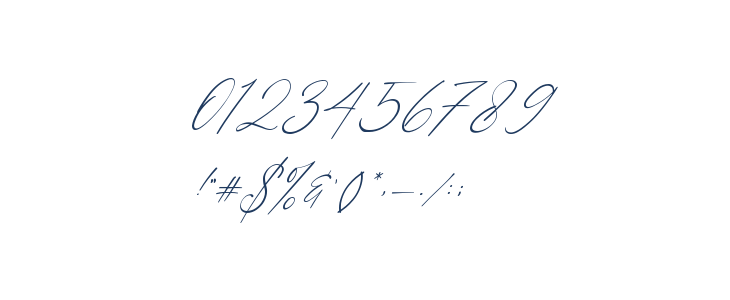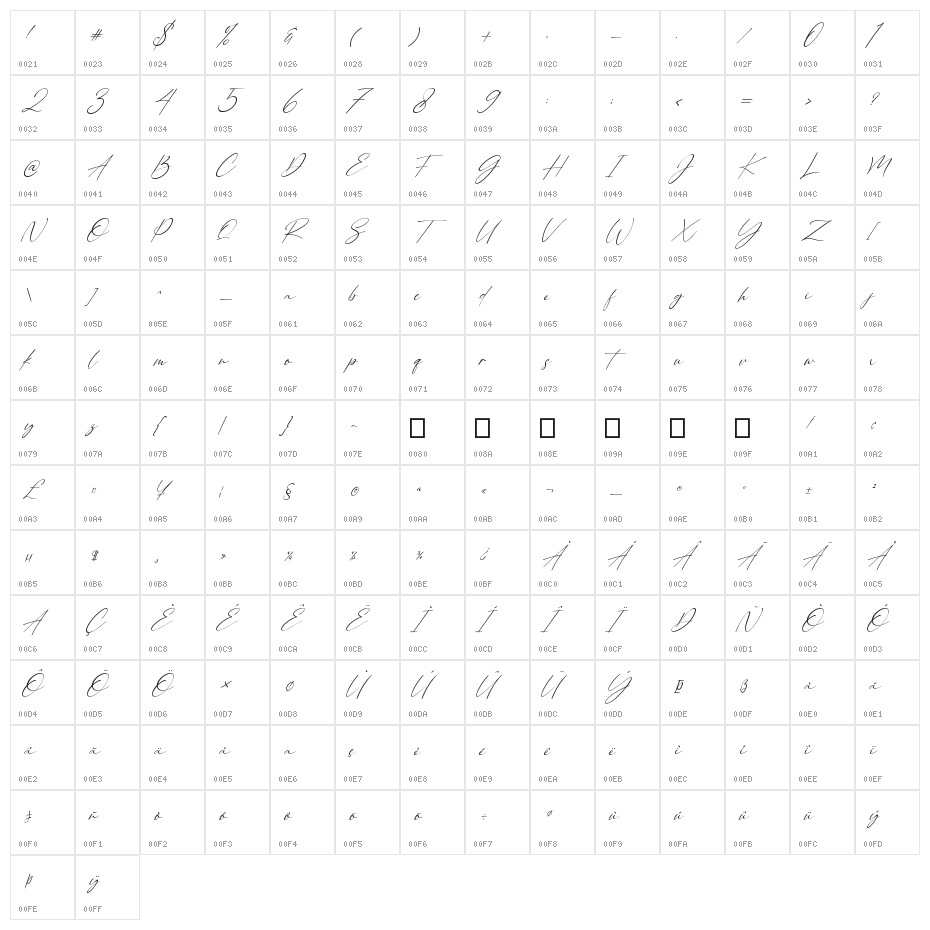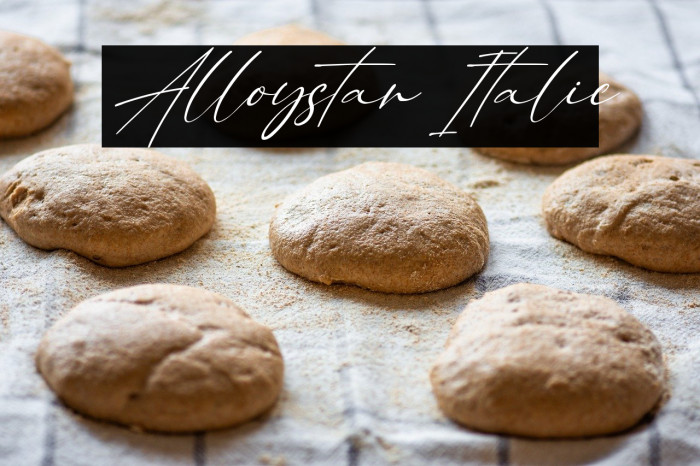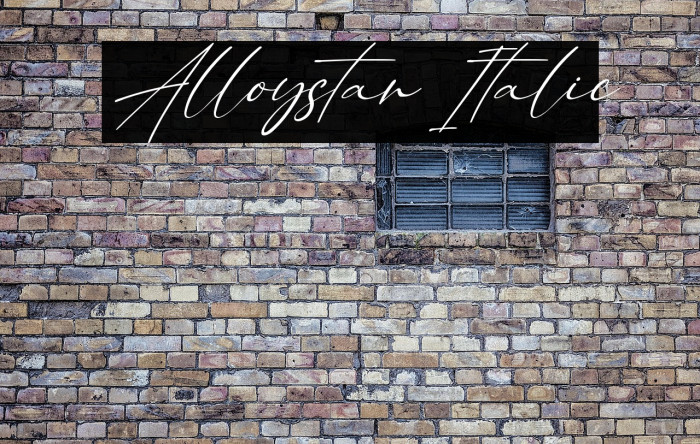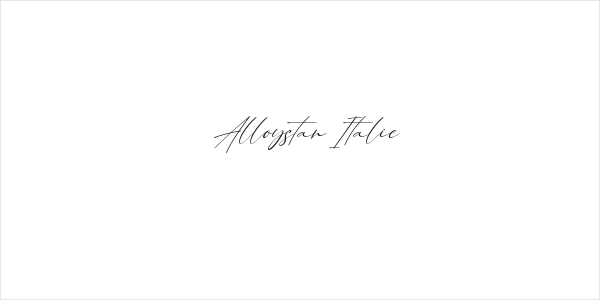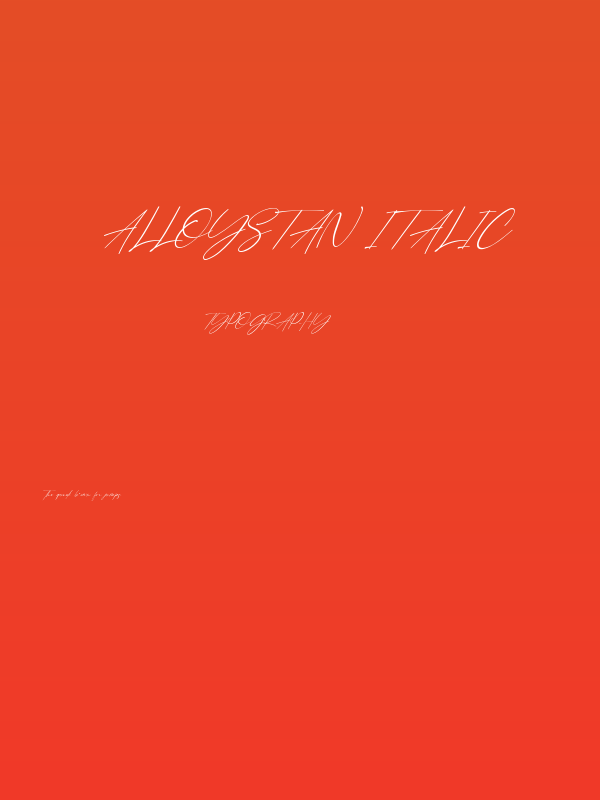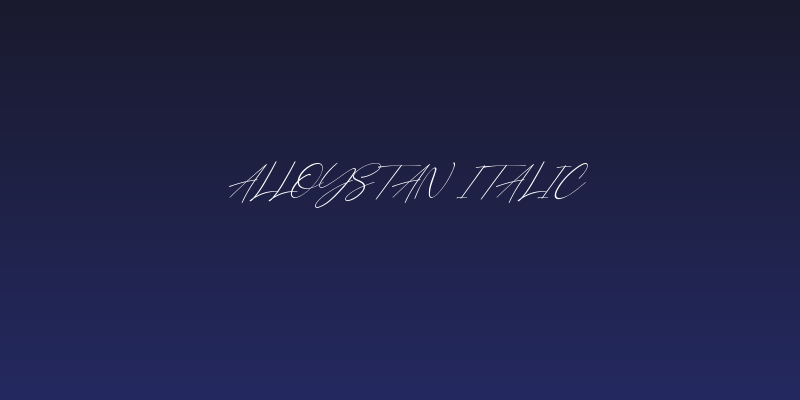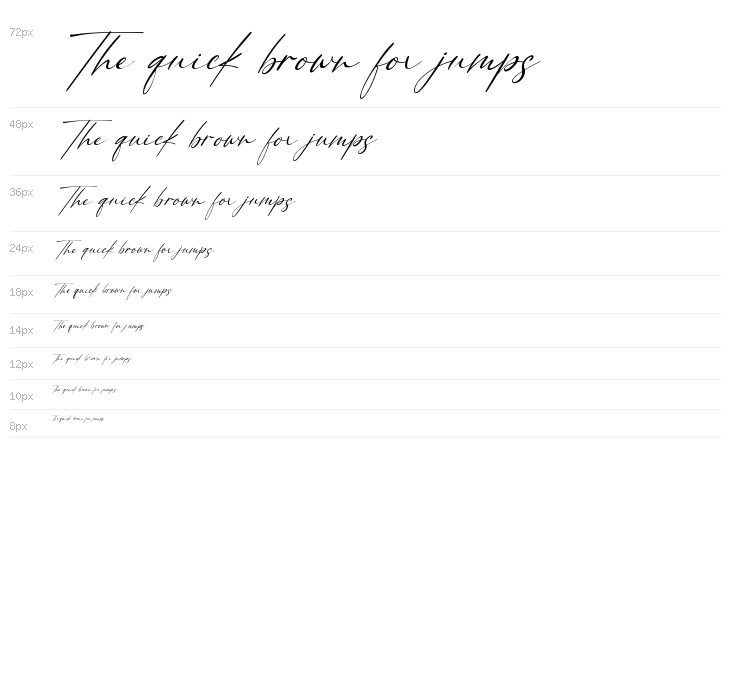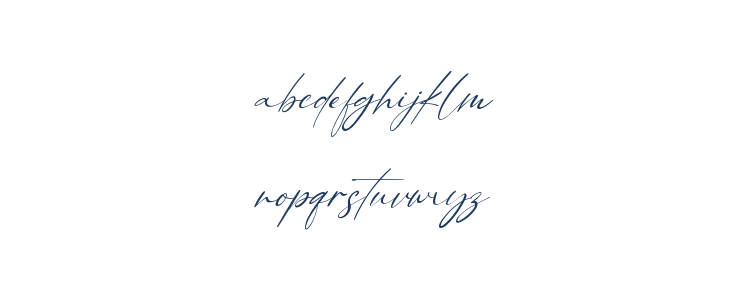
Alloystan Italic Font
Alloystan Italic Description
This font exudes elegance and sophistication with its flowing, cursive style. The letters are connected in a fluid manner, giving it a handwritten appearance that is both graceful and dynamic. The strokes are thin and delicate, with a slight slant that adds to its italicized charm. The uppercase letters are tall and commanding, while the lowercase letters maintain a consistent flow, enhancing readability. Numbers and special characters are designed to match the overall aesthetic, ensuring a cohesive look across all text elements.